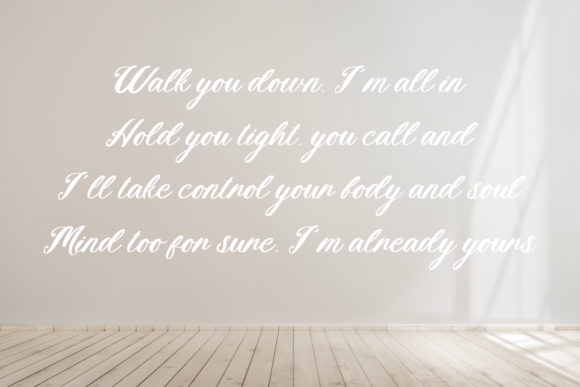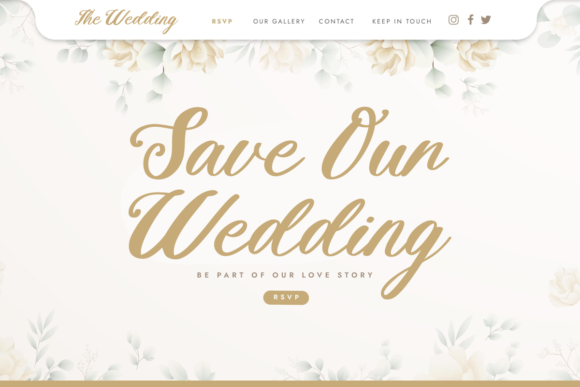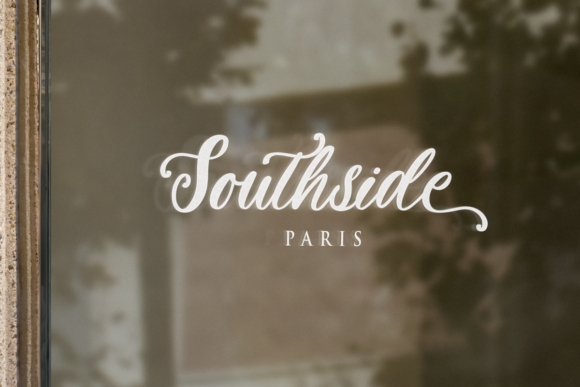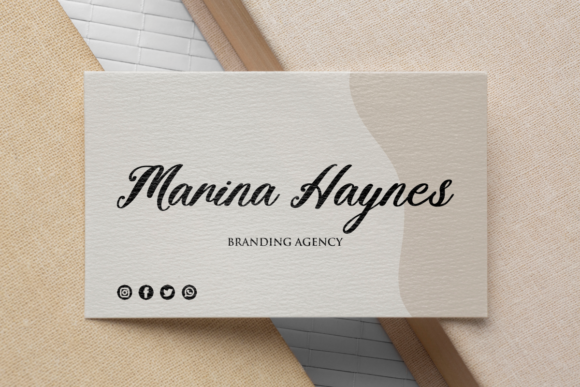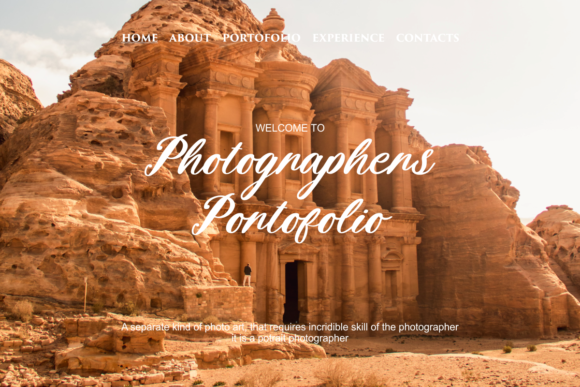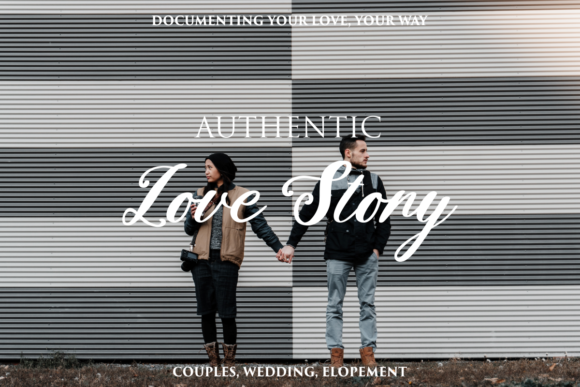
Introducing Blackbird Font: The Ultimate Cursive Script for Elegant Designs
Are you a designer or crafter looking for a beautiful, assertive, and cursive script font to elevate your creative projects? Look no further than Blackbird Font! This stunning font is perfect for adding a handwritten touch to wedding invitations, thank you cards, quotes, greeting cards, logos, business cards, and more.
The Beauty of Blackbird Font
Blackbird Font is a gorgeous, cursive script font that exudes elegance and sophistication. Its flowing lines and curves create a beautiful, assertive look that’s sure to capture attention. Whether you’re designing a wedding invitation or a business card, this font is sure to make your project stand out.
Blackbird Font is incredibly versatile and can be used for a wide range of design projects. Here are just a few ideas to get you started:
- Quotes and posters
One of the best things about Blackbird Font is that it’s PUA (Private Use Area) encoded. This means that you can access all of the glyphs and swashes with ease, giving you even more creative freedom to customize your designs. With PUA encoding, you can:
- Easily access alternate characters and swashes
- Customize your designs with unique glyphs and flourishes
- Save time and effort by having all the characters you need at your fingertips
Why Choose Blackbird Font?
So why should you choose Blackbird Font for your design projects? Here are just a few reasons:
- Unique and elegant look: Blackbird Font has a distinctive, cursive script look that’s sure to set your designs apart.
- Highly versatile: This font can be used for a wide range of design projects, from wedding invitations to business cards.
- Easy to use: With PUA encoding, you can access all of the glyphs and swashes with ease, making it simple to customize your designs.
- Time-saving: With Blackbird Font, you can save time and effort by having all the characters you need at your fingertips.
Tips for Using Blackbird Font
Here are a few tips for getting the most out of Blackbird Font:
- Experiment with different sizes and colors: Blackbird Font looks great in a variety of sizes and colors, so don’t be afraid to experiment and find the perfect combination for your design.
- Use it with other fonts: Blackbird Font pairs well with a variety of other fonts, so try combining it with different fonts to create a unique look.
- Take advantage of PUA encoding: With PUA encoding, you can access all of the glyphs and swashes with ease, so be sure to take advantage of this feature to customize your designs.
Blackbird Font is a beautiful, assertive, and cursive script font that’s perfect for adding a handwritten touch to your design projects. With its elegant look, versatility, and PUA encoding, it’s an excellent choice for designers and crafters looking to elevate their creative projects. Whether you’re designing a wedding invitation, business card, or quote, Blackbird Font is sure to make your project stand out.